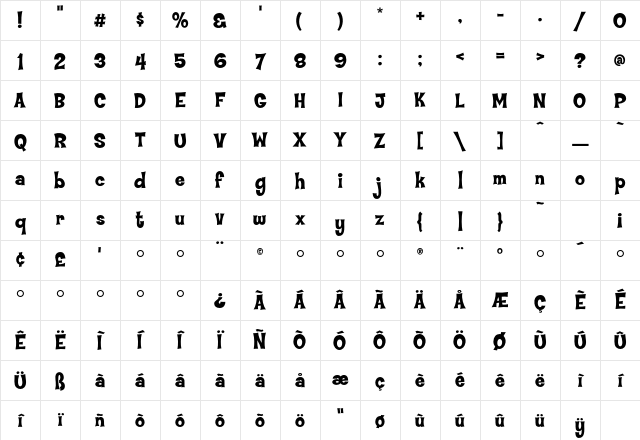
CoopFlaired Regular Free Font
CoopFlaired Regular
Complete CoopFlaired Regular glyph index. Displaying only characters natively supported by CoopFlaired Regular font.
Design Context for CoopFlaired
CoopFlaired is a composed and adaptable typeface that performs quietly and consistently across a wide range of design contexts.